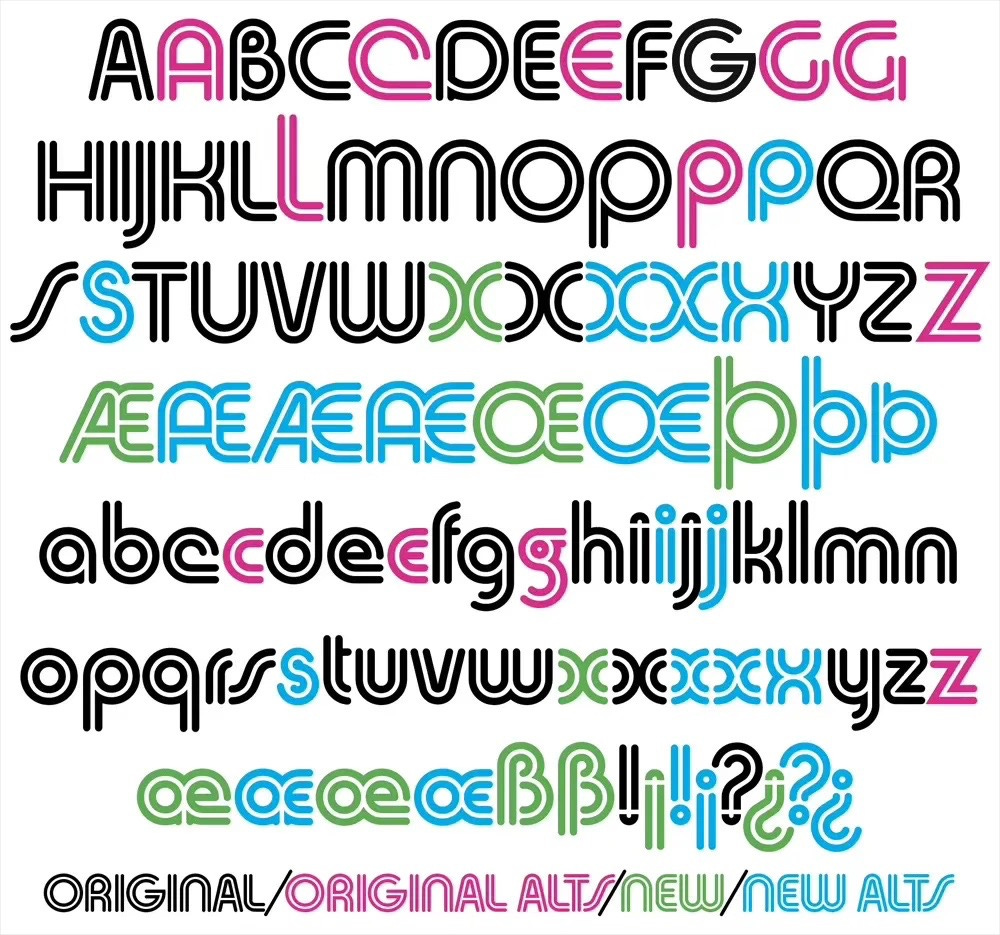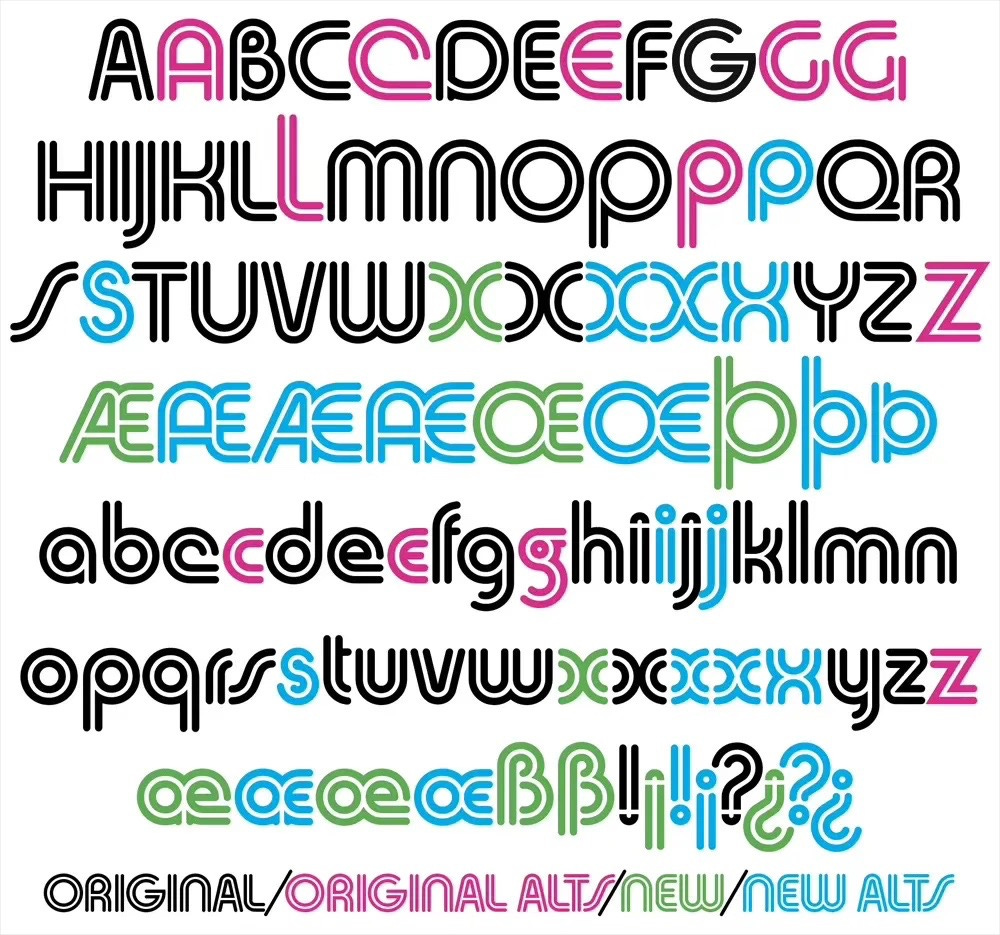
Mark Simonson kindly recorded his September 2025 Type Tuesday presentation on the revival of that 70’s beauty, Skin & Bones — adding additional content to address the lively Q&A session following the talk. Skin & Bones a great story of synchronicity and connection, and you’ll love the type industry info and technical context woven throughout. A must see if you missed it — or, like me, just can’t get enough of good things and amazing type.